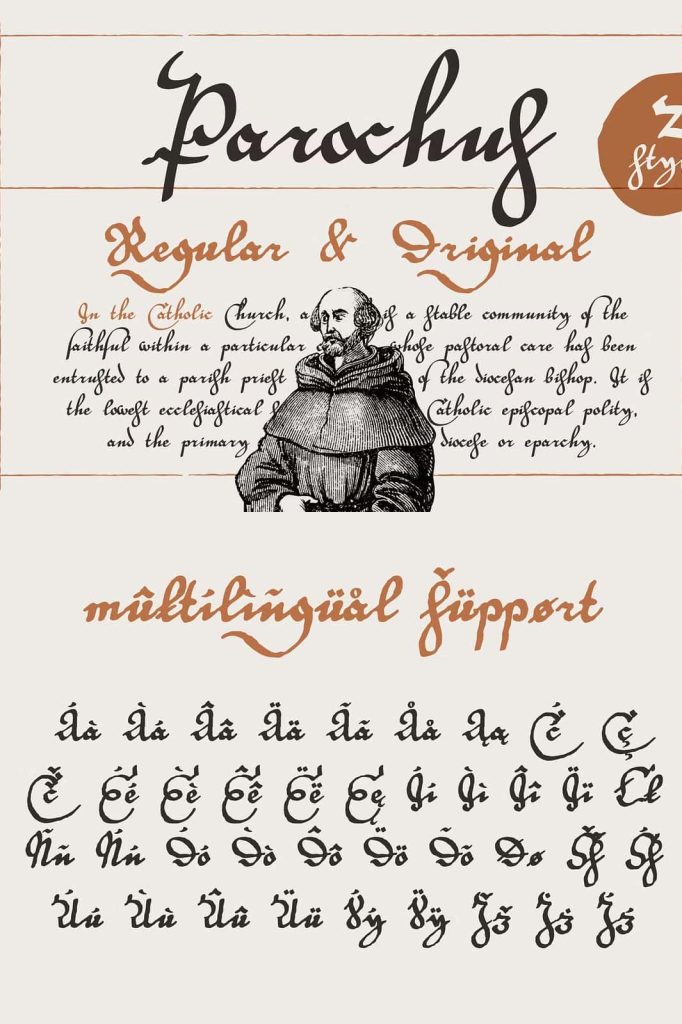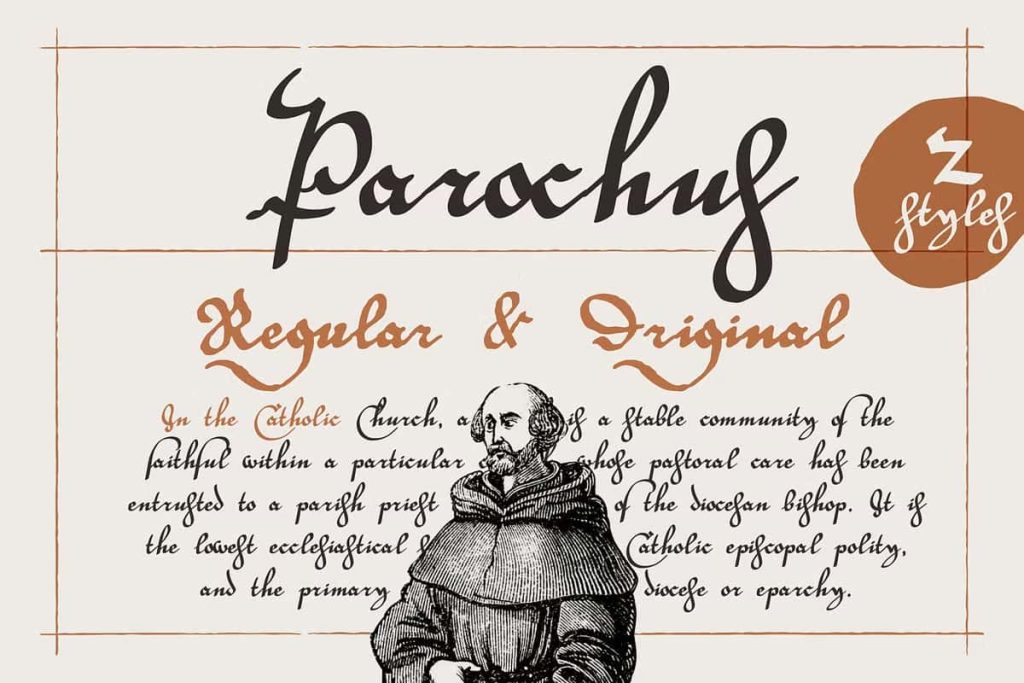
Parochus Script Font
Parochus Script Font is a beautifully crafted calligraphy typeface inspired by authentic handwriting preserved in a rare 17th-century historical publication. Drawing its artistic influence from the elegant script found in Trost Bronn der Kranchhen (A Source of Solace in Illness), a book published during the middle of the seventeenth century, Parochus celebrates the timeless beauty of historical penmanship while bringing it into the modern world of typography.
The font family takes its name from a handwritten inscription discovered on the inside of the book’s cover, reading “Joannes Auanger Parochus Sinchingae 1808.” This remarkable historical detail inspired the name Parochus, giving the typeface not only visual authenticity but also a meaningful connection to centuries of written tradition.
Carefully refined for today’s designers, Parochus preserves the graceful movement, flowing strokes, and handcrafted elegance of historical manuscript lettering while providing the flexibility required for modern branding, editorial design, invitations, publishing, and premium creative projects.
Inspired by Authentic Seventeenth-Century Handwriting
Parochus is rooted in genuine historical calligraphy rather than modern interpretations of vintage lettering. The original handwriting discovered within Trost Bronn der Kranchhen showcases the artistry, precision, and expressive rhythm that characterized European penmanship during the seventeenth century.
Every letter has been thoughtfully redrawn to maintain the beauty of the original writing while ensuring smooth digital performance across contemporary design software. The result is a script font that feels historically authentic without sacrificing readability or professional quality.
Its elegant letterforms reflect the craftsmanship of handwritten manuscripts, historical correspondence, religious publications, and archival documents that continue to inspire typographers today.
A Typeface with Historical Character
Unlike ordinary script fonts, Parochus tells a story through its design. The handwritten inscription discovered inside the historic volume creates a direct connection between the typeface and its historical inspiration. Naming the font after the inscription honors the document’s heritage while preserving a small piece of typographic history for modern creative use.
This rich historical background gives Parochus a unique personality that cannot be replicated through purely decorative script lettering. Every project created with the font carries the elegance and authenticity of centuries-old handwriting traditions.
Elegant Calligraphy for Premium Design
Parochus features flowing curves, balanced proportions, and graceful connections that create refined calligraphic compositions suitable for luxury branding and sophisticated visual communication. The font combines decorative beauty with excellent readability, making it appropriate for both artistic headlines and elegant display text.
Its handcrafted appearance immediately communicates heritage, craftsmanship, and timeless elegance while remaining versatile enough for contemporary creative projects.
Perfect for Branding and Visual Identity
Typography plays a vital role in creating memorable brands, and Parochus helps businesses establish identities built on elegance, authenticity, and tradition. Its classic script style is particularly effective for premium brands seeking a handcrafted visual personality.
The typeface performs beautifully across logos, luxury packaging, boutique branding, stationery, certificates, and high-end marketing materials where sophistication and refinement are essential.
Recommended Branding Applications
- Luxury logos
- Boutique branding
- Wine labels
- Beauty product packaging
- Jewelry branding
- Premium stationery
- Book publishing
- Historical museums
- Personal branding
Ideal for Wedding and Event Stationery
The elegant flow of Parochus naturally complements wedding invitations, save-the-date cards, certificates, menus, event programs, greeting cards, and personalized stationery. Its graceful handwriting creates warm and memorable designs that celebrate important occasions with timeless beauty.
Whether used for names, decorative headings, or complete display compositions, the font adds sophistication without overwhelming the overall layout.
Excellent for Editorial and Publishing Projects
Parochus performs exceptionally well in editorial design where decorative typography plays a central role. Magazine covers, historical publications, book titles, chapter headings, exhibition catalogs, and artistic publications all benefit from its authentic handwritten appearance.
Pair the font with clean serif typography for body text to create balanced layouts that combine historical elegance with modern readability.
Parochus Script Font is a refined calligraphy typeface inspired by genuine handwriting discovered in the historic seventeenth-century publication Trost Bronn der Kranchhen. Named after the handwritten inscription “Joannes Auanger Parochus Sinchingae 1808,” this elegant font combines historical authenticity with modern design functionality. Perfect for branding, invitations, editorial design, book publishing, certificates, luxury packaging, and premium creative projects, Parochus transforms every piece of typography into a timeless expression of craftsmanship, heritage, and enduring elegance.